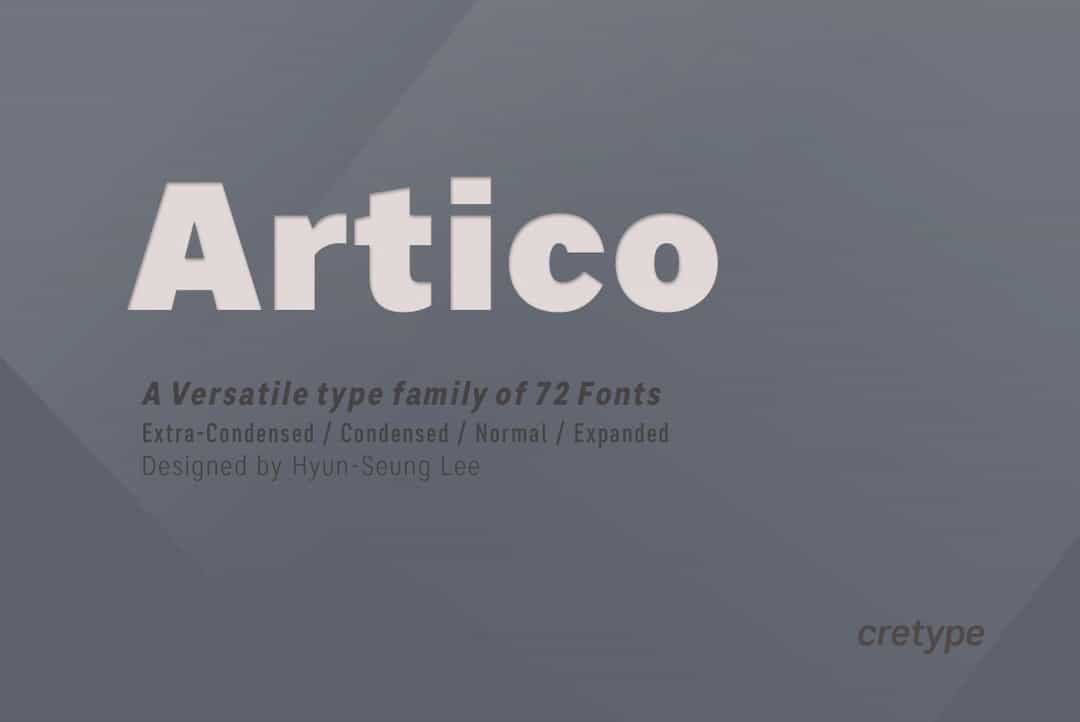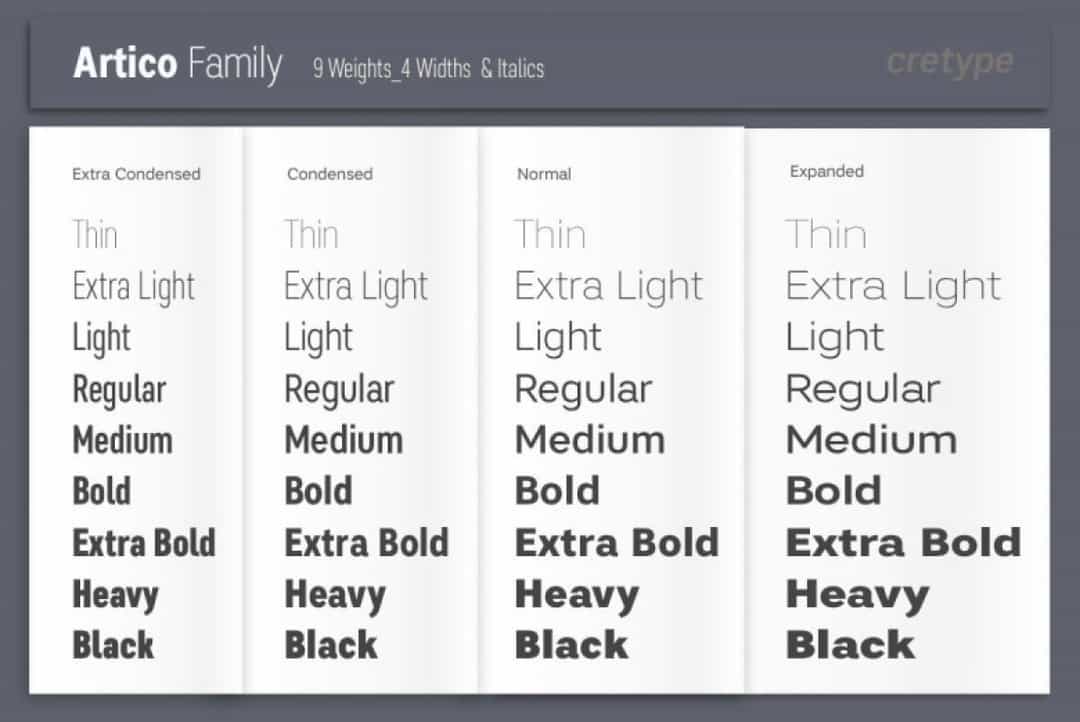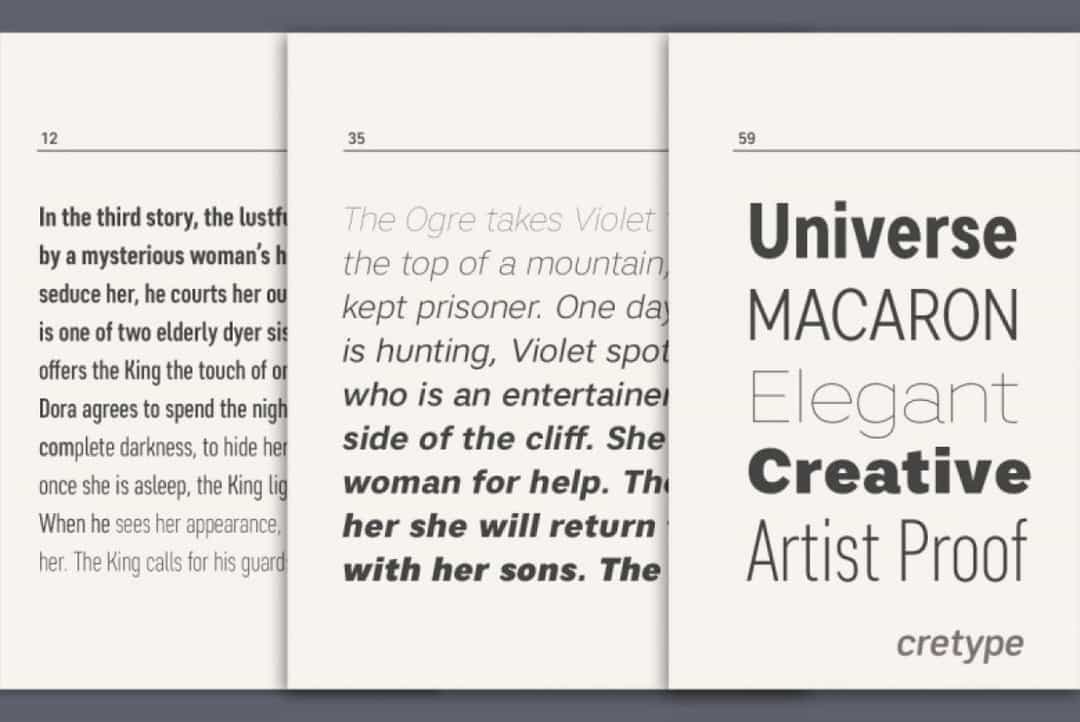
Artico Font Family is a modern sans-serif font with clean lines that makes reading effortless. Each letter in this family of fonts features authentic neo-grotesque basic forms without any decorative distracting elements and spaces between letters are precisely aligned for optimal font performance.